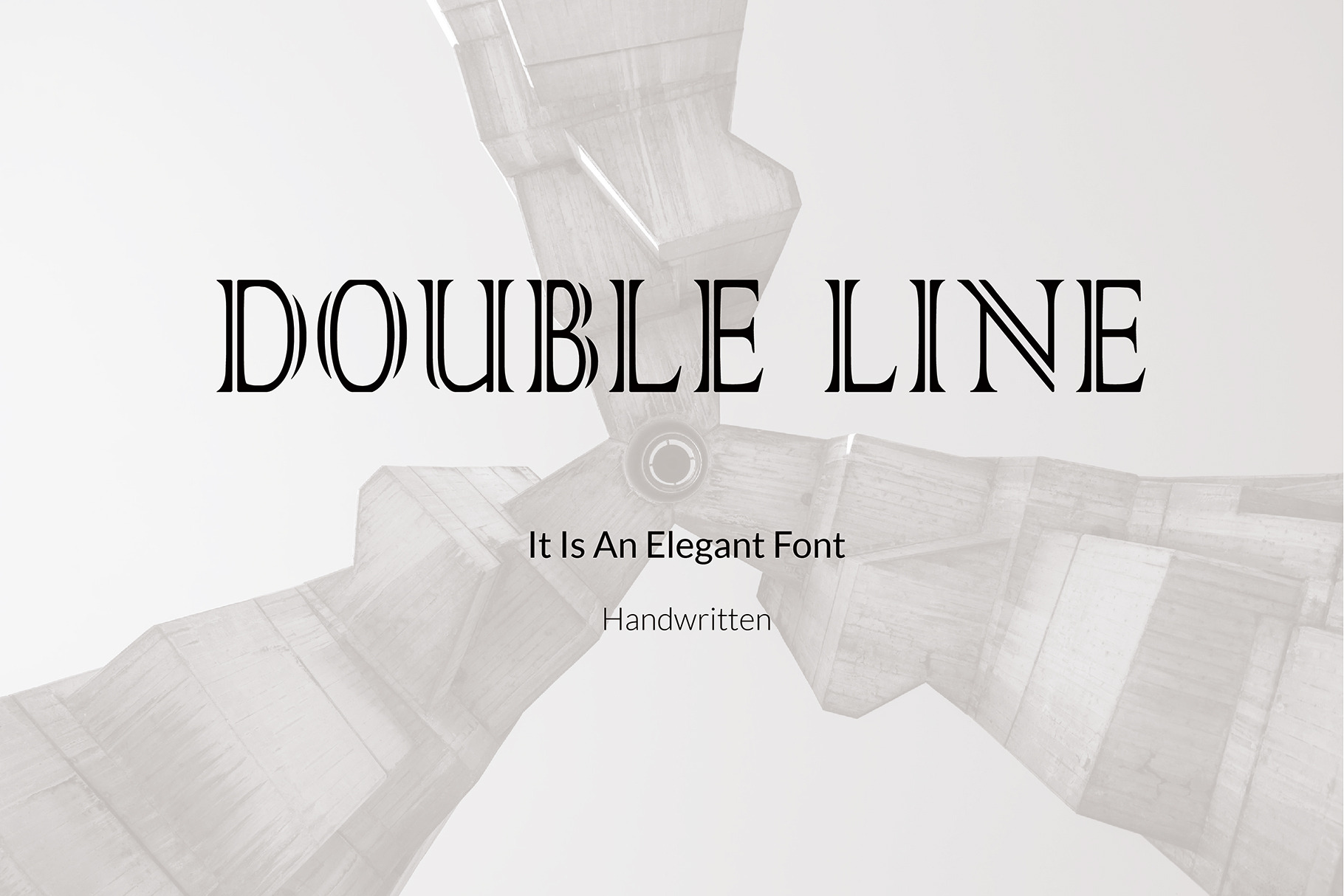
Double Line-Handwritten Font
Each word consists of two elegant lines,It’s a handwriting font,Suitable for: Web design,Graphic Design,Posters,Concert,Goods,Magazine, etc. It is very cool It is suitable for making logo and posters.